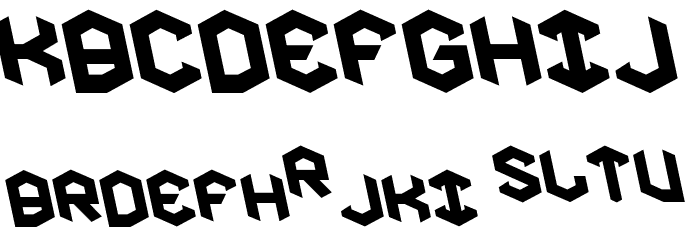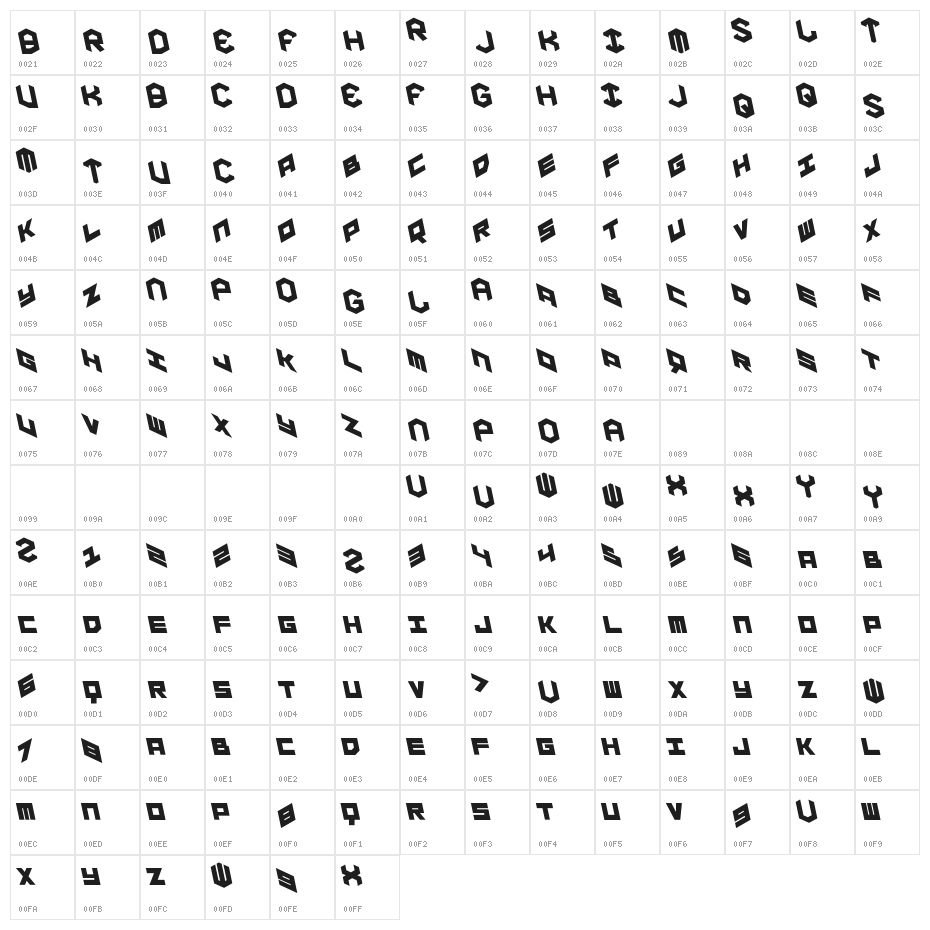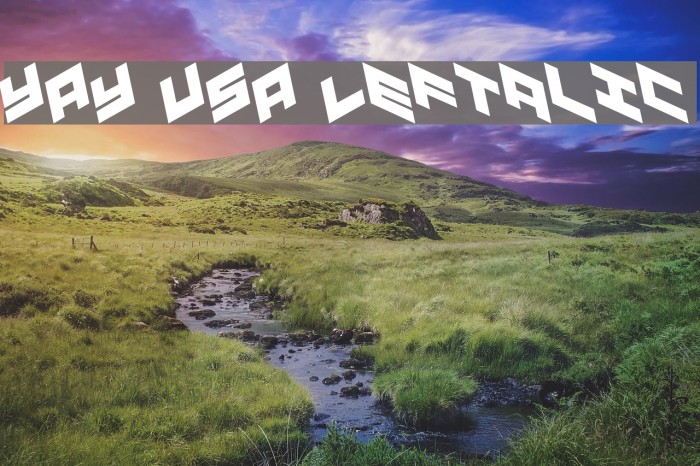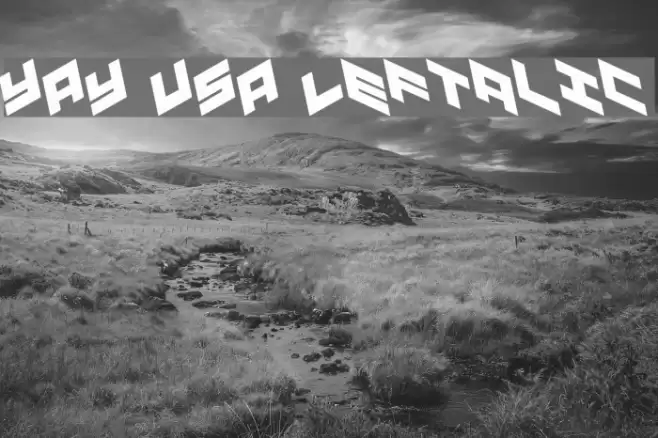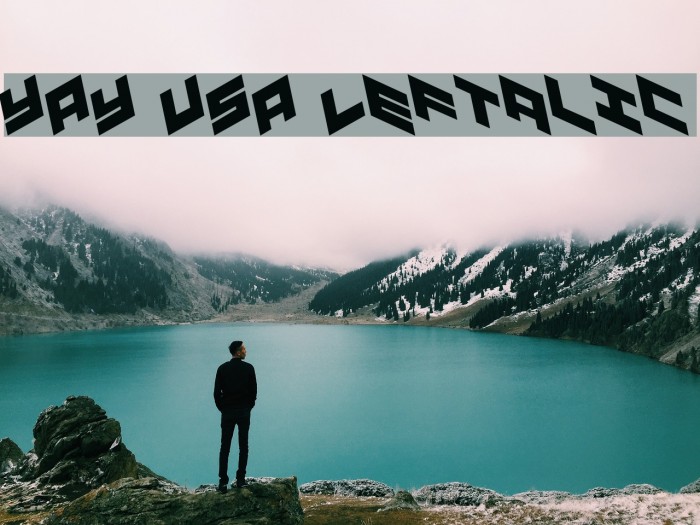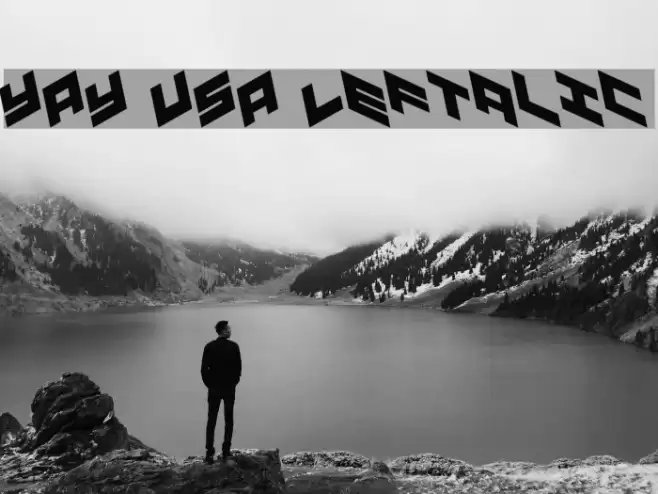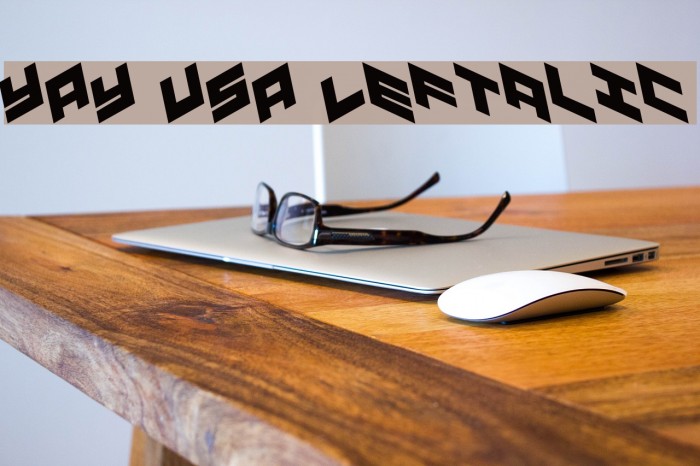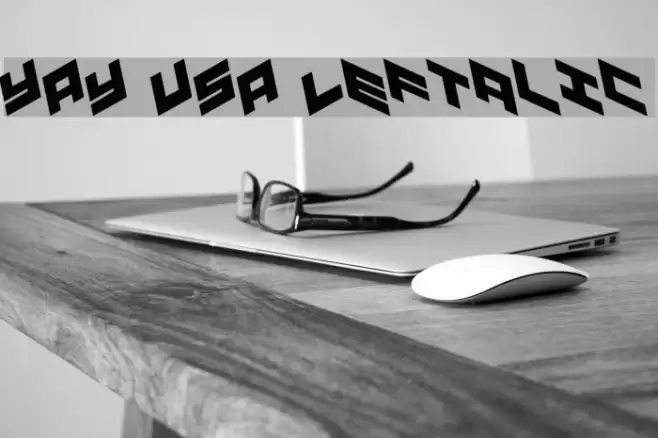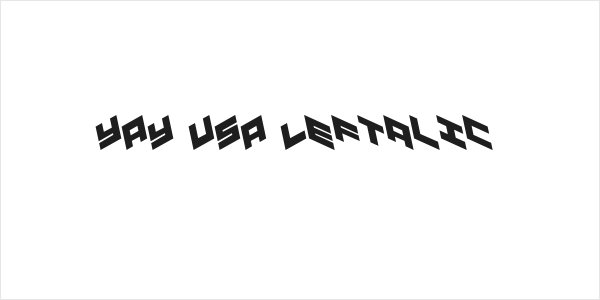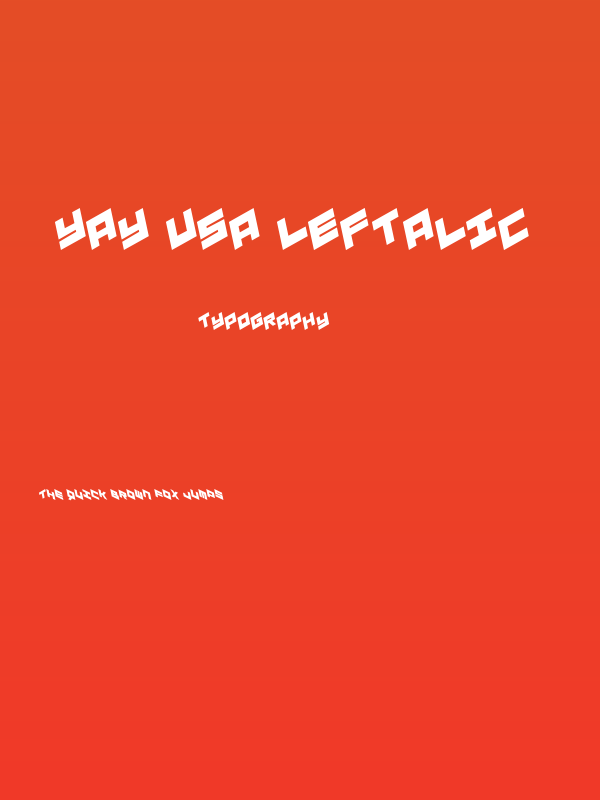
YAY USA Leftalic Font
YAY USA Leftalic Description
This font features a bold and angular design with a distinct slant to the left, giving it a dynamic and energetic appearance. The characters are constructed with thick strokes and sharp edges, creating a sense of movement and urgency. The uppercase and lowercase letters maintain a consistent style, with the uppercase being slightly more pronounced. The numbers and special characters follow the same angular and bold aesthetic, ensuring uniformity across all glyphs. This font's unique style makes it stand out, perfect for attention-grabbing headlines or impactful designs.